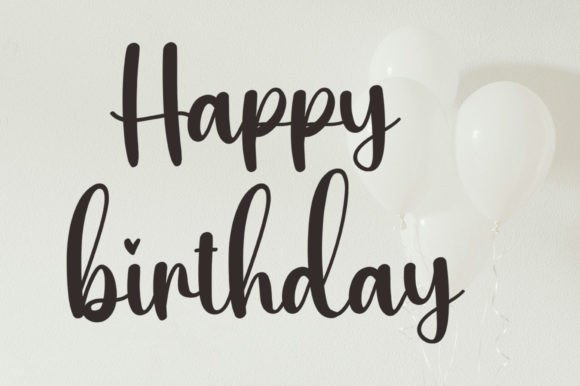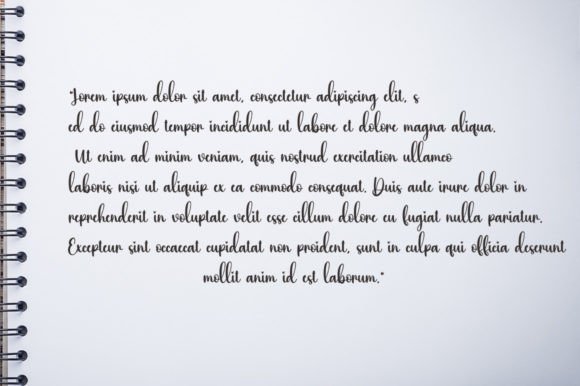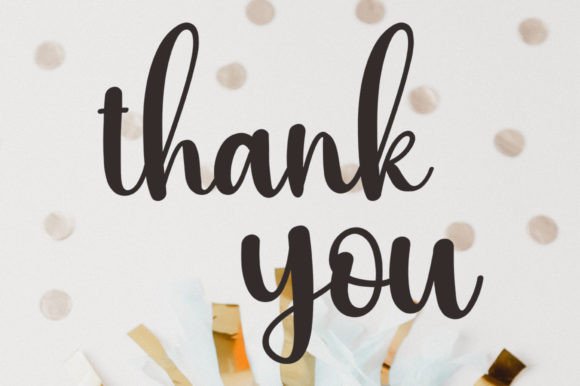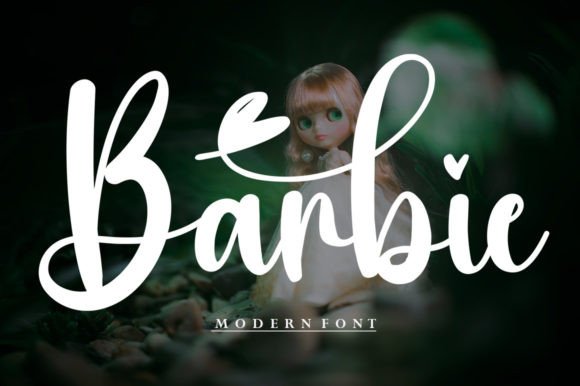
Discover the Elegance of Barbie Font: Elevate Your Designs with a Touch of Sophistication
Are you a designer or crafter looking for a font that exudes charm and elegance? Look no further than the Barbie Font. This beautiful, handwritten font is perfect for adding a touch of sophistication to a variety of design projects. From wedding invitations and thank you cards to quotes, greeting cards, logos, and business cards, Barbie Font is sure to make your designs stand out.
The Characteristics of Barbie Font
Barbie Font is a script font that features elegant, cursive letters with a touch of whimsy. Its flowing lines and delicate curves give it a romantic and feminine feel, making it perfect for designs that require a touch of sophistication. The font is highly legible, even at small sizes, making it versatile for use in a variety of applications.
Uses for Barbie Font
Barbie Font is a versatile font that can be used in a wide range of design projects. Here are some ideas to get you started:
- Wedding Invitations: Add a touch of elegance to your wedding invitations with Barbie Font. Its romantic and sophisticated feel makes it perfect for formal wedding stationery.
- Thank You Cards: Express your gratitude in style with Barbie Font. Its elegant script is perfect for thank you cards, gift tags, and other correspondence.
- Quotes and Posters: Add a touch of whimsy to your quotes and posters with Barbie Font. Its flowing lines and delicate curves make it perfect for designs that require a touch of sophistication.
- Greeting Cards: Create beautiful greeting cards for special occasions like birthdays, anniversaries, and holidays with Barbie Font.
- Logos and Branding: Use Barbie Font to create a sophisticated logo or brand identity for your business. Its elegant script is perfect for businesses that want to convey a sense of luxury and refinement.
- Business Cards: Stand out from the crowd with Barbie Font on your business cards. Its elegant script is sure to make a lasting impression on potential clients and customers.
Why Choose Barbie Font?
There are many reasons why Barbie Font is a great choice for designers and crafters. Here are a few:
- Elegant and Sophisticated: Barbie Font is a beautiful, elegant font that adds a touch of sophistication to any design.
- Versatile: Barbie Font can be used in a wide range of design projects, from wedding invitations to logos and branding.
- Easy to Read: Barbie Font is highly legible, even at small sizes, making it perfect for use in a variety of applications.
- Unique: Barbie Font has a unique and distinctive look that sets it apart from other fonts.
Tips for Using Barbie Font
Here are a few tips for using Barbie Font in your designs:
- Use it sparingly: Barbie Font is a elegant and sophisticated font, so use it sparingly to avoid overwhelming your design.
- Pair it with other fonts: Barbie Font pairs well with other fonts, such as sans serif fonts, to create a beautiful contrast.
- Experiment with colors: Barbie Font looks beautiful in a variety of colors, from soft pastels to rich jewel tones.
| Font Name | Barbie Font |
| Author | Anaya Studio |
Barbie Font is a beautiful, elegant font that is perfect for designers and crafters looking to add a touch of sophistication to their designs. Its versatile and highly legible, making it perfect for use in a wide range of applications. Whether you’re creating wedding invitations, logos, or greeting cards, Barbie Font is sure to make your designs stand out.